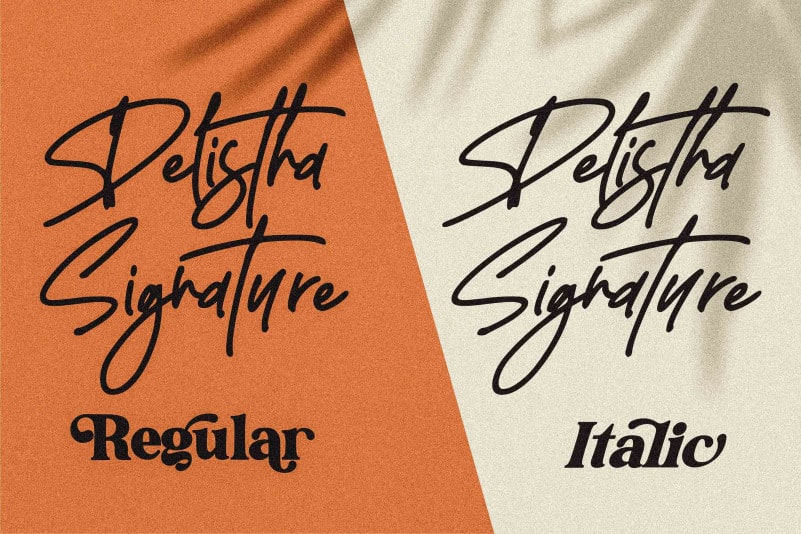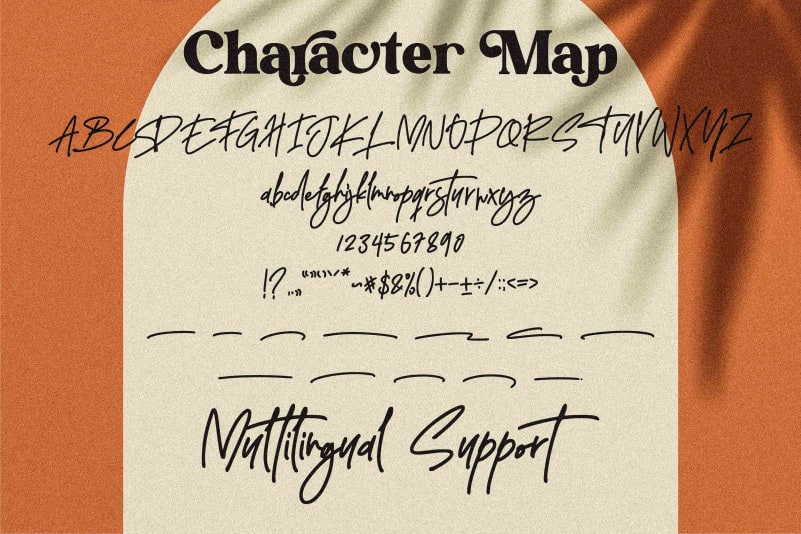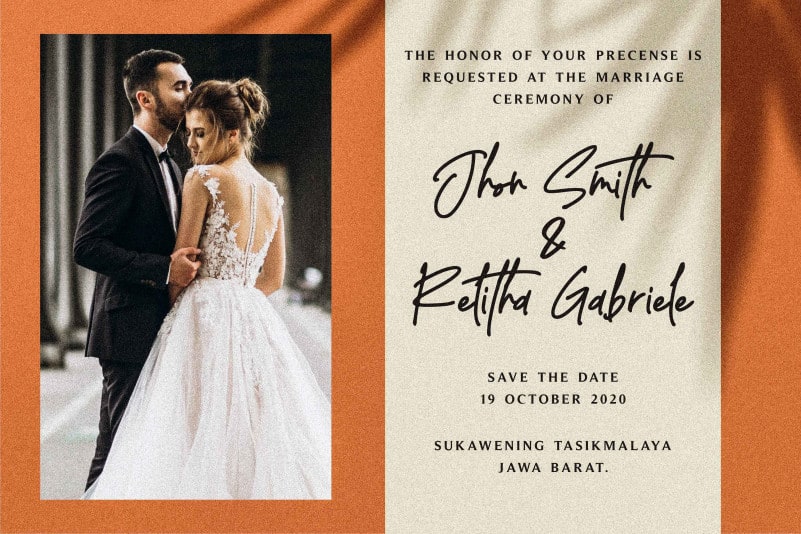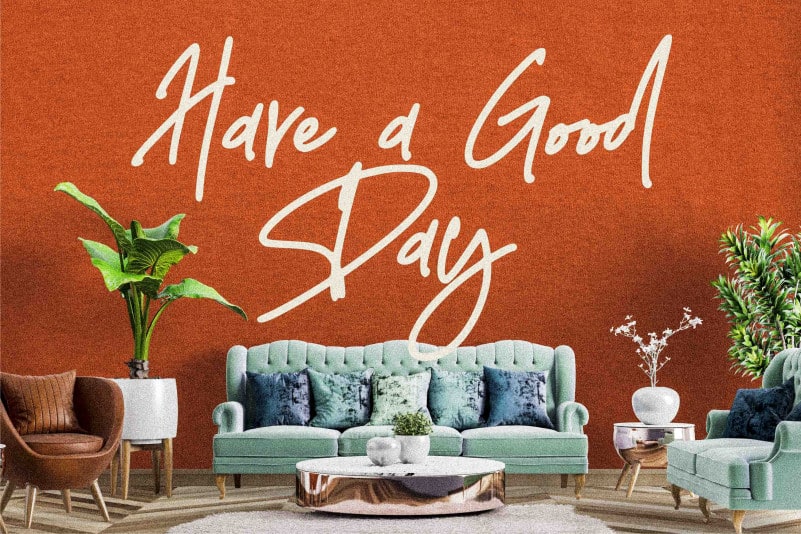
Delistha Signature Font
Delistha Signature Font is a neat and stylish handwritten font. Not too thin and not too thick, balanced and varied, this cursive font was designed to enhance the beauty of your projects.